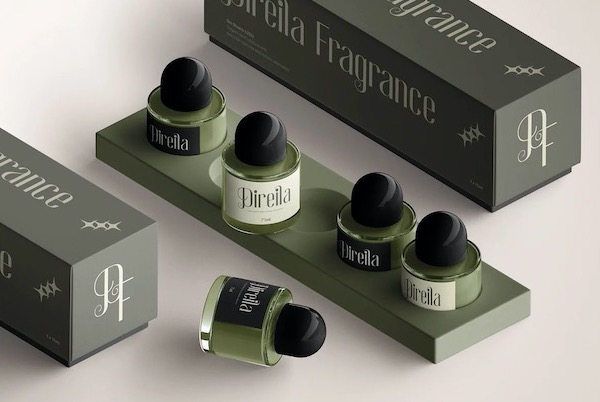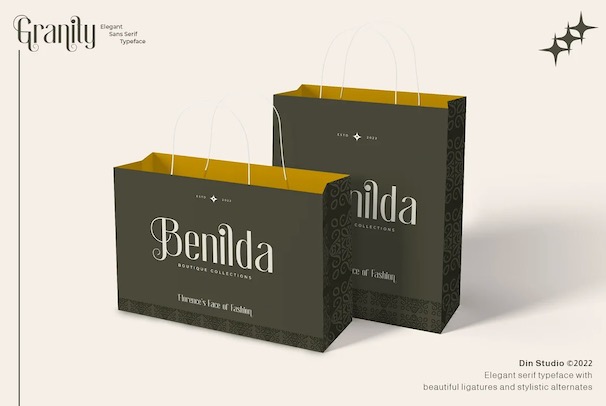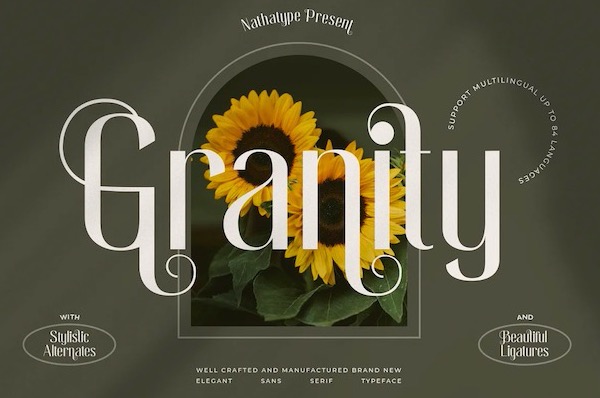
Granity Font
Introducing Granity typeface. This is a modern sans serif font that was created and shared by Natha Type. This basic font is very suitable for market designs being developed today, this font has a trendy, natural, and soft style. You can take advantage of every moment. A great way to highlight your design or project. So beautiful on invitation like greeting cards, logos, fashion, lookbook, marketing promotions. branding materials, business cards, quotes, posters, and more.